If you’re looking to add a touch of rustic charm to your designs, Canva offers a treasure trove of rustic fonts perfect for creating that cozy, country-chic vibe. From handwritten scripts to vintage-inspired typefaces, these fonts can elevate your projects with a warm, inviting feel. Whether you’re working on invitations, posters, or social media graphics, these 17 rustic fonts on Canva are sure to bring a touch of countryside elegance to your designs. These fonts are selected for their ability to convey a rustic, homey feel while also being versatile and functional for a wide range of design needs.
1. Alex Brush
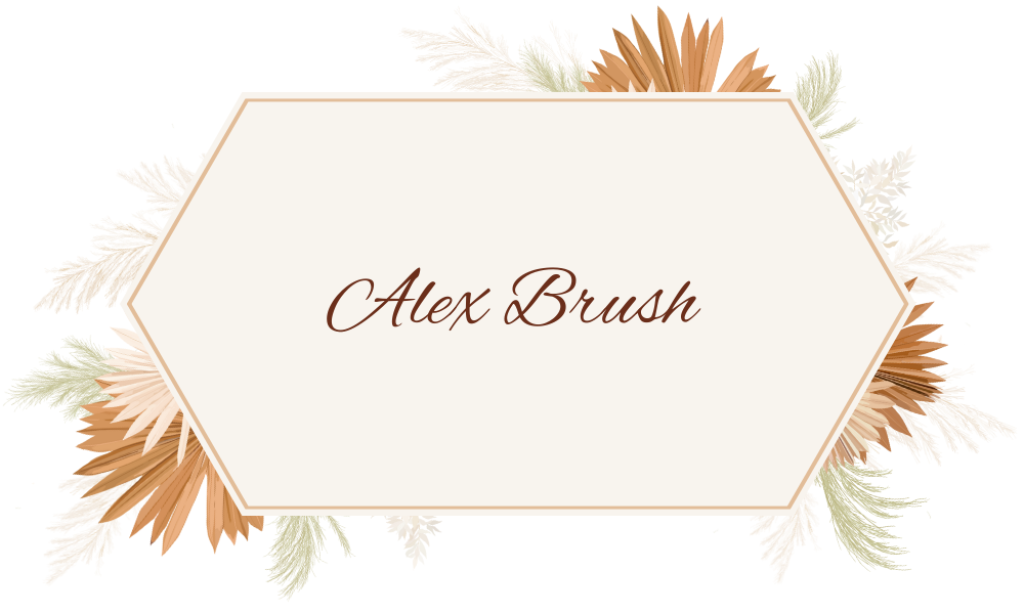
Why it is Rustic font: Alex Brush is a beautifully flowing script font with a casual, slightly cursive style. Its elegant strokes mimic hand-painted brushwork, making it ideal for adding a personal, artisanal touch to any design.
2. Amatic SC
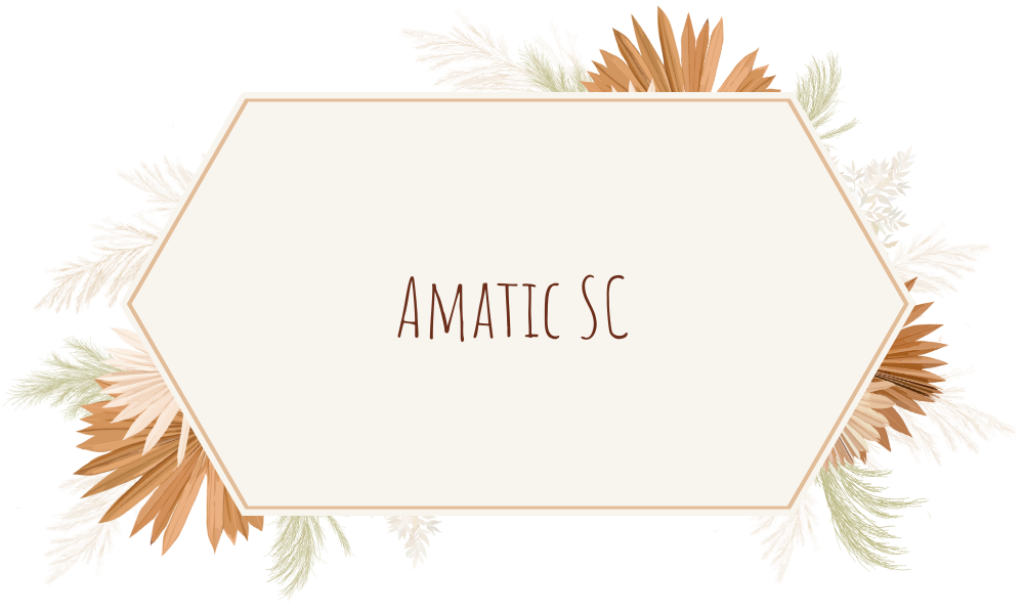
Why it is Rustic font: Amatic SC is a quirky, condensed hand-drawn font. Its irregular, uneven lettering gives it a charming, homemade feel perfect for projects that aim for a casual, approachable look.
3. Atteron
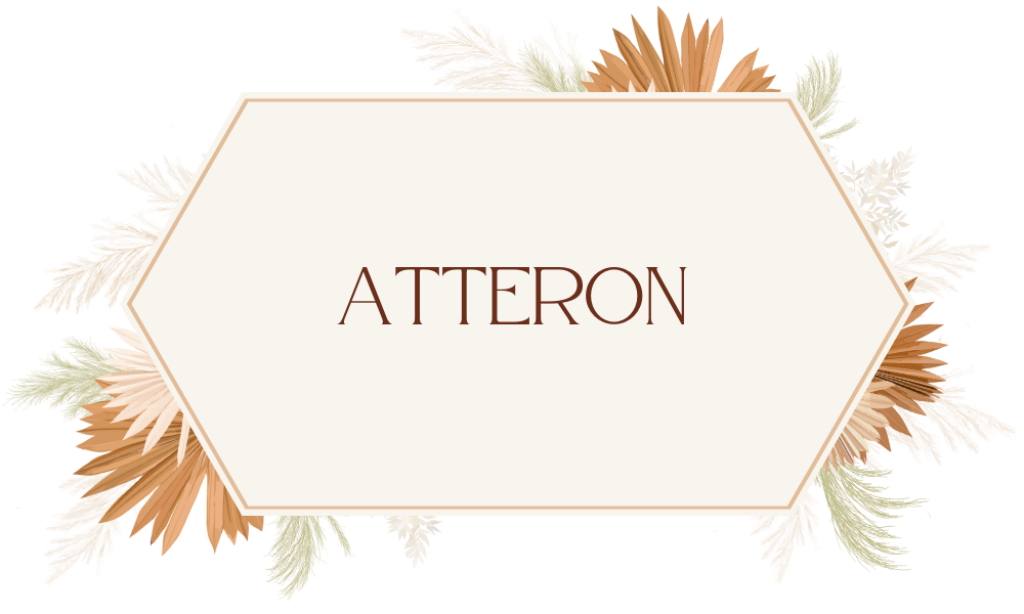
Why it is Rustic font: Atteron combines a rugged, stencil-like appearance with vintage undertones. This font is robust and readable, great for making bold statements while keeping a rustic vibe.
4. Best Light
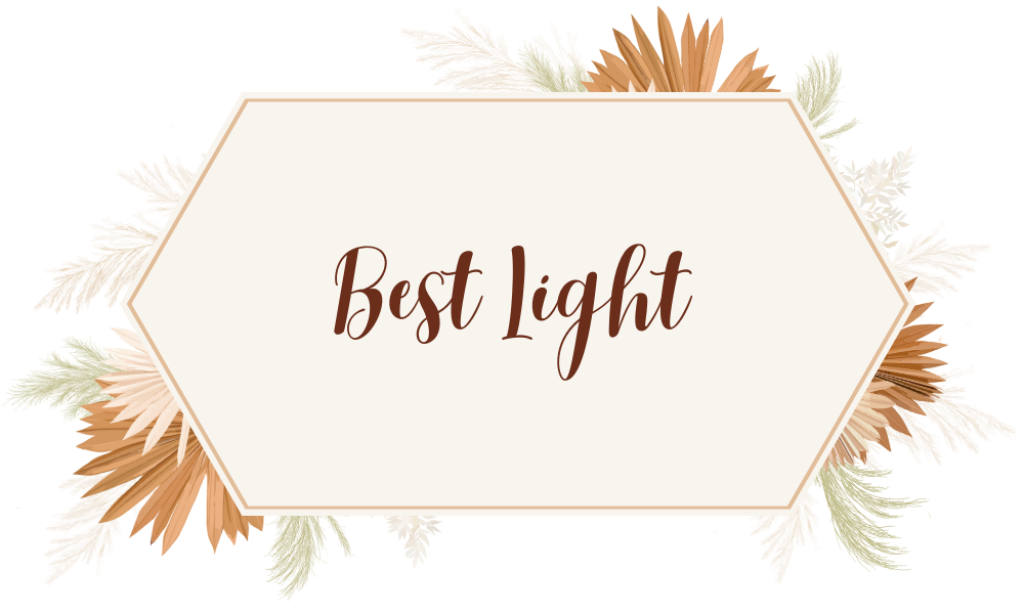
Why it is Rustic font: Best Light is airy and delicate, with fine lines that suggest simplicity and elegance. It’s perfect for designs that require a touch of lightness without sacrificing a homey, rustic feel.
5. Better Saturday
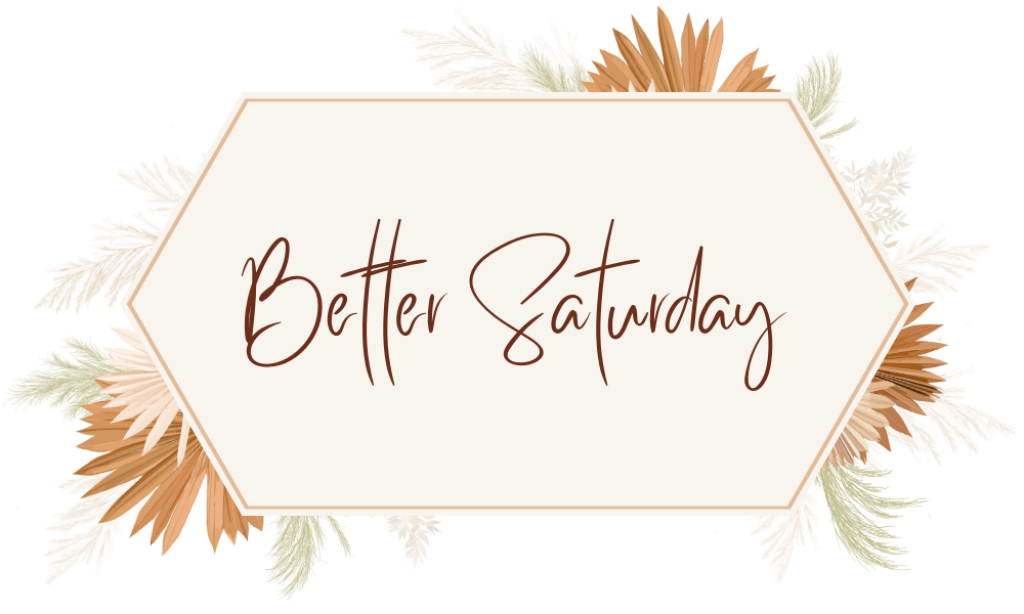
Why it is Rustic font: With its playful and light-hearted style, Better Saturday brings a cheerful, informal air to any design. It’s perfect for invitations, café menus, or any project that benefits from a friendly, inviting font.
6. Bowl
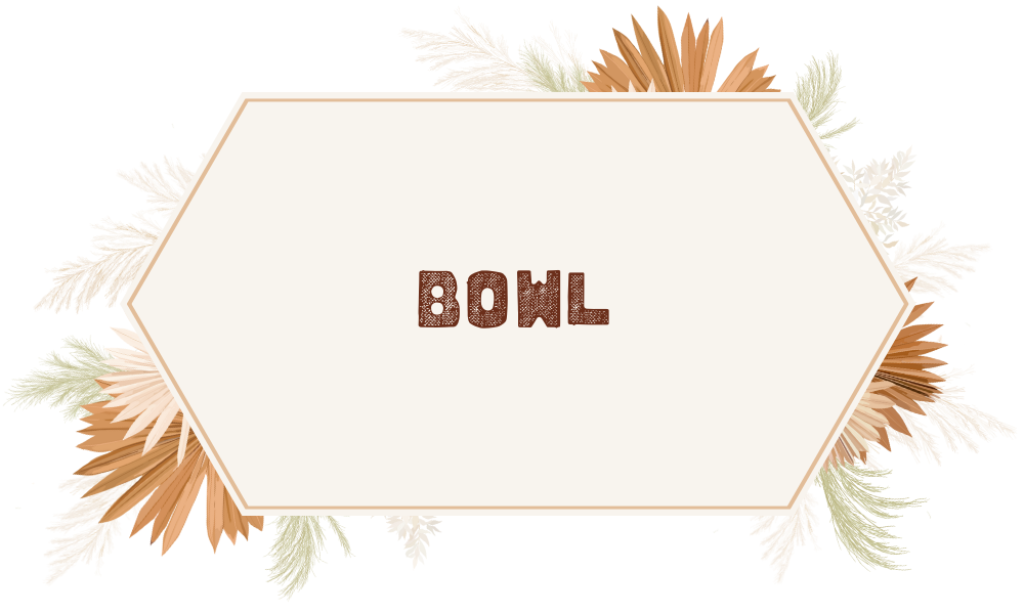
Why it is Rustic font: Bowl is a thick, blocky font with a hand-carved look. Its solid presence and slightly rough edges make it a strong choice for impactful headlines in country-themed designs.
7. Chamomile
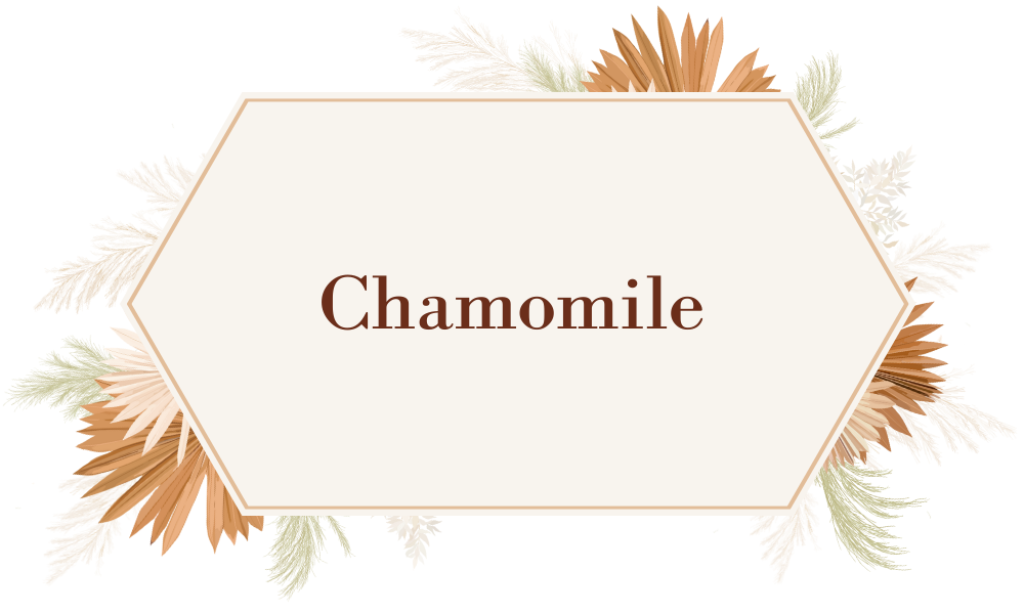
Why it is Rustic font: Chamomile is as gentle and soothing as the tea it is named after. This script font features soft, rounded curves and a fluid rhythm, ideal for creating a calm, cozy atmosphere in your designs.
8. Girassol
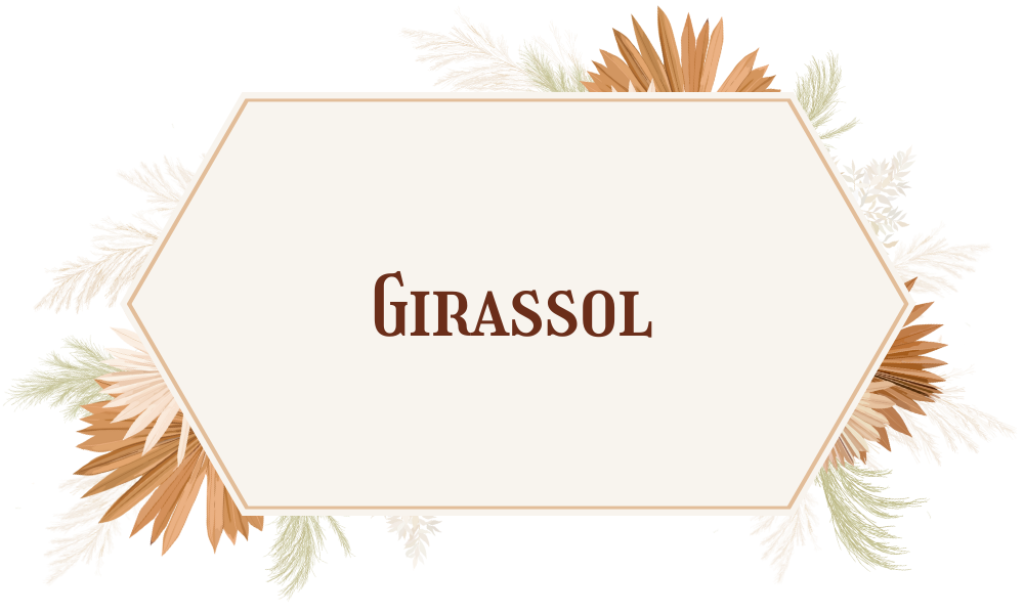
Why it is Rustic font: Girassol is a bold, sunny font with a lot of personalities. Its round shapes and heavy weight make it great for designs that need to stand out while still maintaining a friendly and open feel.
9. Greenth Grunge
Why it is Rustic font: True to its name, Greenth Grunge brings a textured, distressed look that’s perfect for edgier designs or for adding a touch of vintage wear-and-tear to modern layouts.
10. Intro Rust Lineshade
Why it is Rustic font: Intro Rust Lineshade offers a layered, decorative style with a textured effect. It combines rustic charm with a bit of industrial flair, suitable for more complex, eye-catching designs.
11. Kust
Why it is Rustic font: Kust is a handwritten brush font where each stroke is expressive and unique. The raw, energetic quality of Kust makes it ideal for artistic projects or branding that values originality and a handcrafted look.
12. Lovely May
Why it is Rustic font: Lovely May is a light, flowing script that feels both romantic and nostalgic. It’s perfect for wedding invitations, boutique branding, or any design that calls for a touch of soft, vintage elegance.
13. Lumberjack
Why it is Rustic font: Lumberjack is a robust, multi-style font that includes textured, regular, and shadow versions, allowing for versatile use across various types of rustic designs.
14. Nixie One
Why it is Rustic font: Nixie One combines retro charm with clarity and readability. Its sleek, narrow profile makes it a good fit for text-heavy designs that require a vintage typewriter feel.
15. Rasputin
Why it is Rustic font: Rasputin is a bold, ornate font that recalls the mystique and drama of historical narratives. Its distinctive style makes it suitable for thematic designs that need a touch of old-world elegance.
16. Rustic Printed Stamp
Why it is Rustic font: As the name suggests, Rustic Printed Stamp mimics the look of old stamps or woodblock prints. This font is excellent for adding authenticity and historical depth to any design.
17. Vintage Rotter
Why it is Rustic font: Vintage Rotter offers a beautifully aged look with textured lines and an uneven baseline. It’s perfect for adding a bit of antique flair to modern compositions, bridging old and new in a seamless fashion.